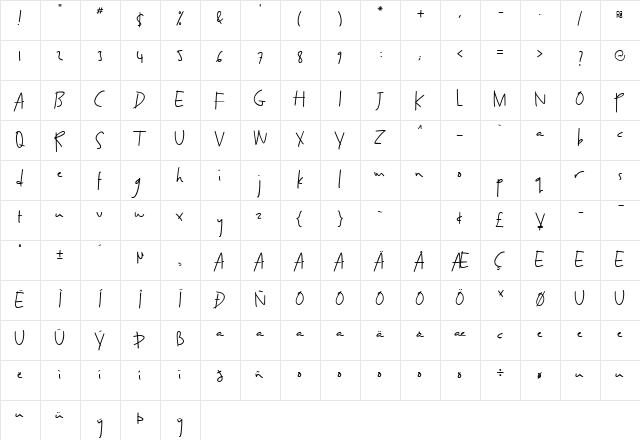
Yay!_Demo Regular
| Designer | Wasito Utomo (ketapelcreative) |
Design Context for Yay!_Demo Typeface
Yay!_Demo takes a measured approach to typography — its balanced proportions and neutral character make it a reliable workhorse for both digital and print work.